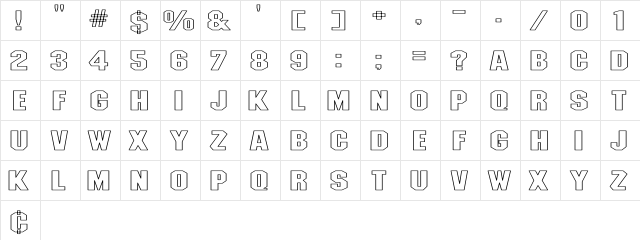
MachiavelliBld HE Regular
Design Context for MachiavelliBld HE Typeface
MachiavelliBld HE is a composed and adaptable typeface that performs quietly and consistently across a wide range of design contexts.